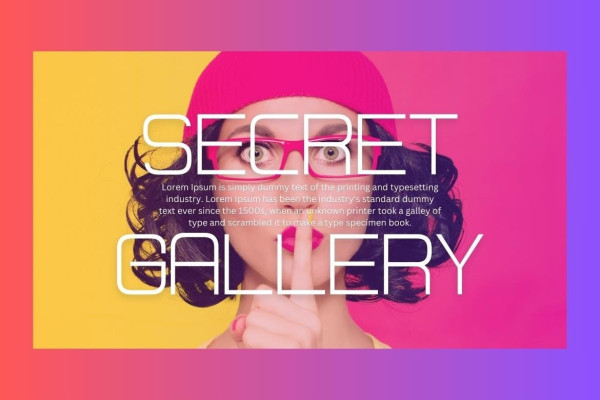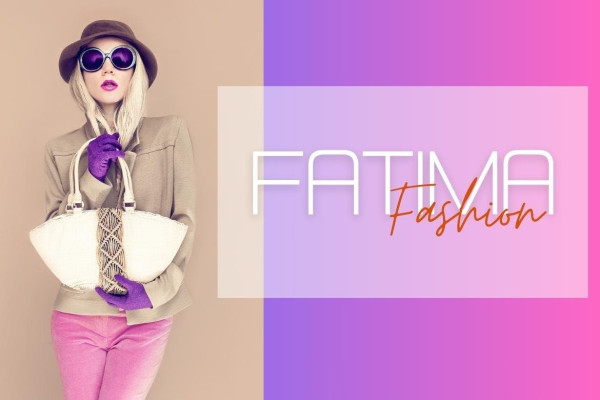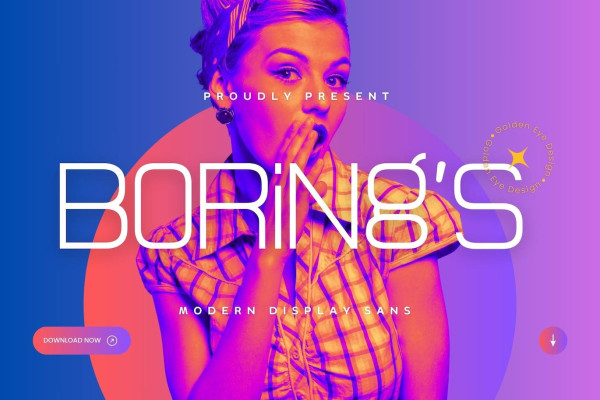
Borings Font
Borings Font – Boring’s – Modern Display Sans Serif. Boring’s is a modern and simple font, best used as a display for headings, logos, branding, magazines, product packaging and invitations.